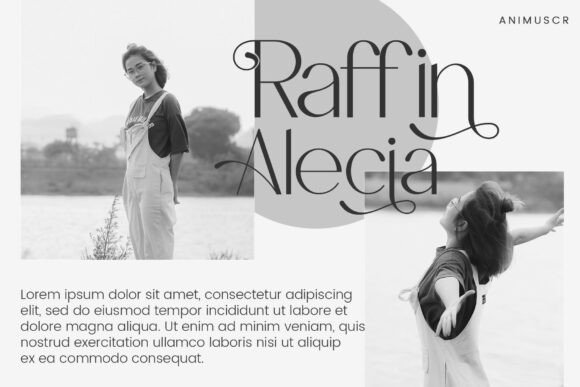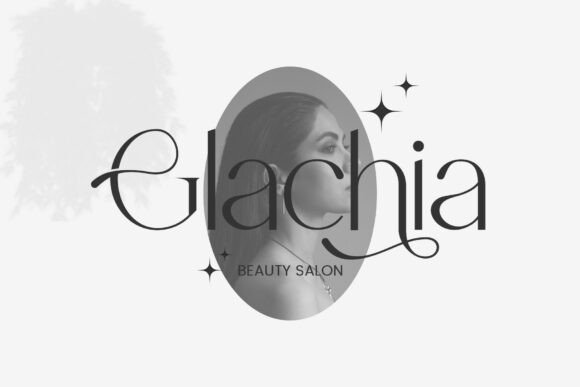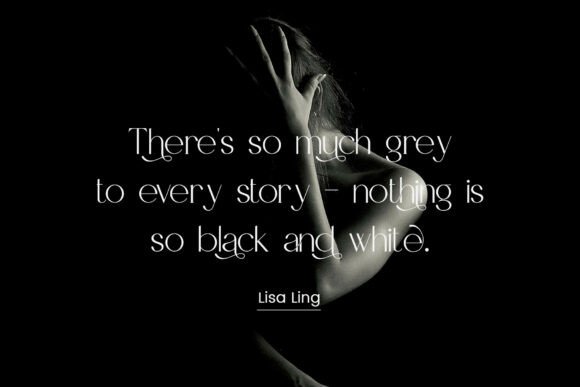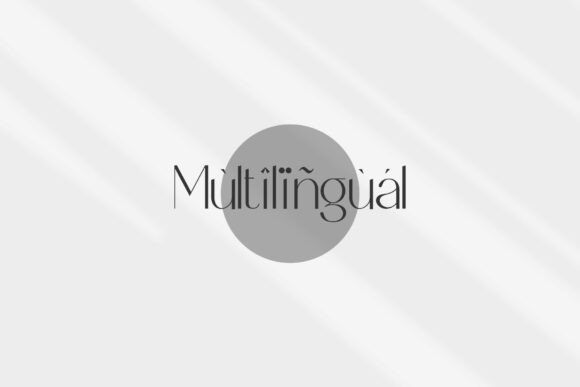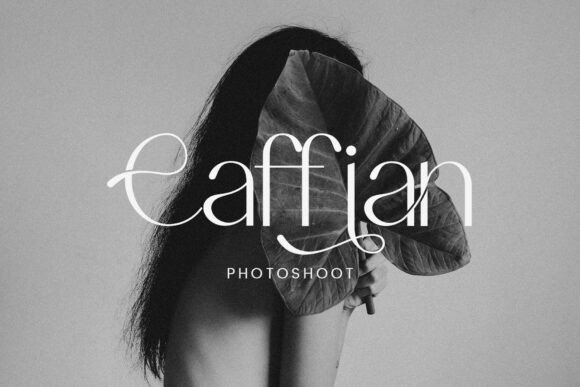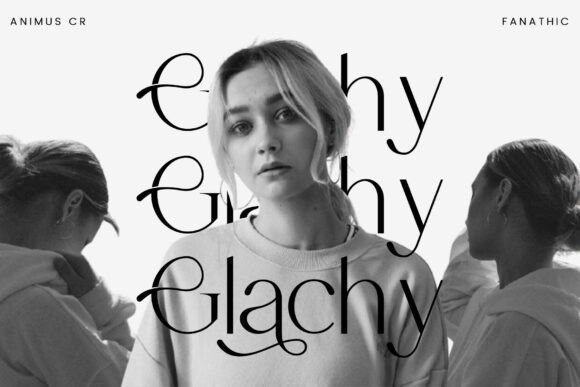
Introduction to Fanathic Font
Have you ever stared at a blank page, desperately searching for the perfect font to bring your creative project to life? The struggle is real, but what if I told you that there’s a design resource that can elevate your work and make it truly unforgettable? Enter the Fanathic Font, a sophisticated and refined “elegant sans serif” typeface that’s about to become your new go-to.
With its minimalist structure and decorative flair, the Fanathic Font is the perfect choice for designers looking to add a touch of luxury and elegance to their high-end branding, editorial titles, or modern stationery. Its clean, high-contrast letterforms and slender strokes make it a joy to work with, while the fluid, calligraphic-style swashes and ligatures add a unique and customized touch to any text.
Whether you’re working on a free download or a high-quality print project, the Fanathic Font is sure to impress. Its versatility and sophistication make it a valuable asset for any designer looking to take their work to the next level.
Key Features of Fanathic Font
- Unique characteristics include intricate details and ornate elements, perfect for adding a touch of sophistication to designs.
- Designed to be versatile and adaptable, making it suitable for a wide range of creative projects, from branding and marketing materials to digital art and typography.
Honest Review: Fanathic Font
As a designer, I’m always on the lookout for high-quality design resources to elevate my creative projects. Recently, I came across the Fanathic Font, and I must say it’s been a game-changer.
- ✨ High-quality font with intricate details and a unique aesthetic
- ✨ Transparent background, making it easy to layer and customize
However, I do have a few reservations about the Fanathic Font. For example:
- ⚠️ The font can be a bit overpowered, so use it sparingly to avoid overwhelming your design
- ⚠️ Some characters may not display correctly in certain font sizes or styles
Overall, I’m impressed with the Fanathic Font. It’s a valuable addition to any designer’s toolkit, and I’ve already used it in several of my recent projects. If you’re looking for a high-quality, free design resource, I highly recommend giving it a try.
Tips for Getting the Most Out of Fanathic Font
Experiment with different font sizes and styles to achieve the desired effect. Use the font in combination with other design elements to create a visually appealing and creative project. Take advantage of the font’s high quality and transparent background to create a unique and eye-catching design.
Fanathic Font is a versatile design resource that can be used in a variety of creative projects, including logo designs, infographics, and social media graphics. It is also suitable for use in presentations, reports, and other business documents.